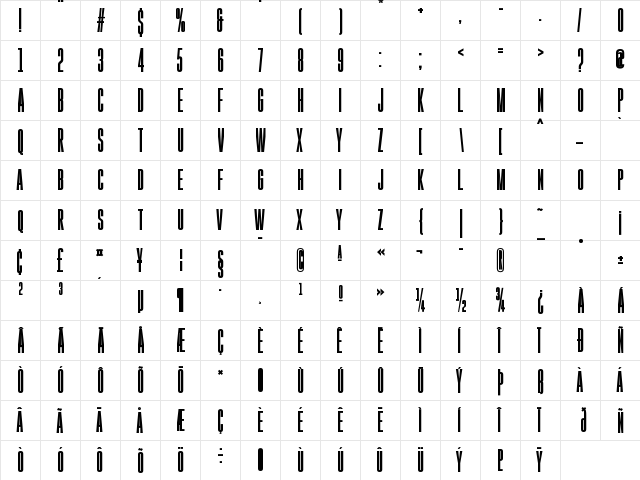
Gobold High Bold Regular
| Designer | Situjuh Nazara |
Design Context for Gobold High Bold Typeface
Gobold High Bold takes a measured approach to typography — its balanced proportions and neutral character make it a reliable workhorse for both digital and print work. Its bold stroke weight gives it real presence on the page.